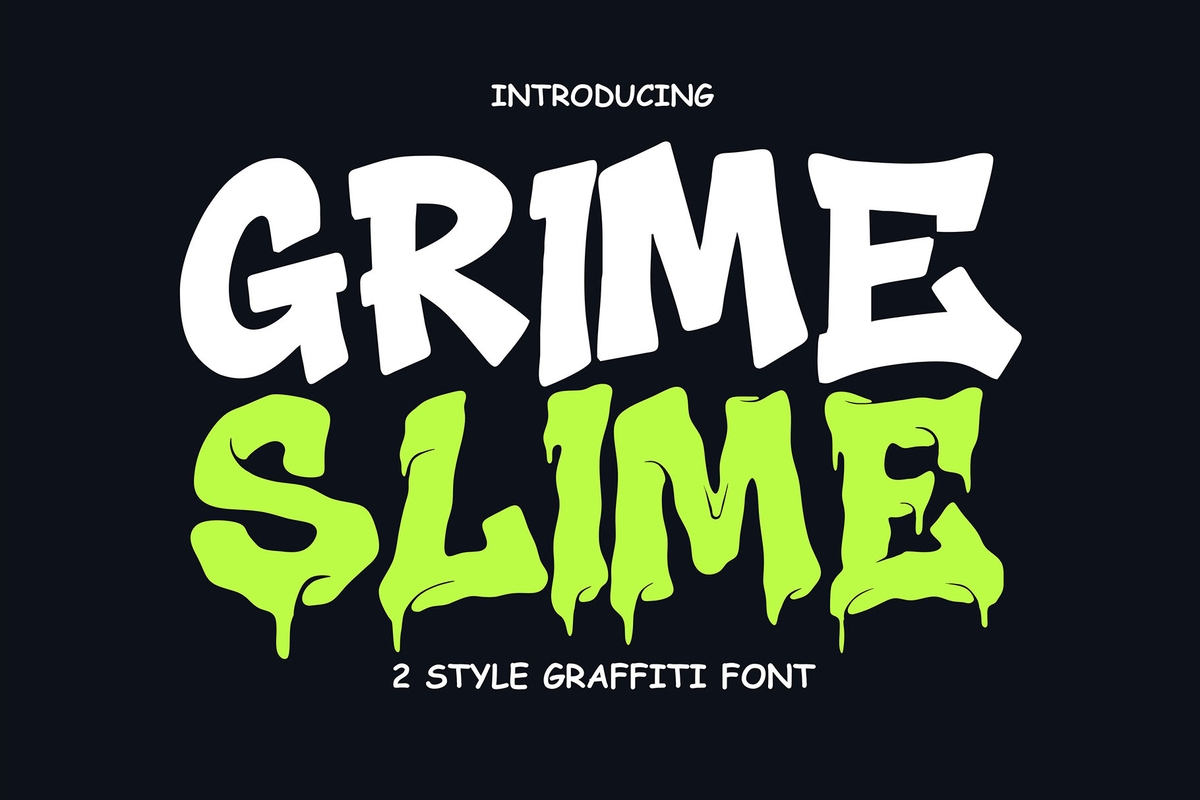
Grime Slime - Dripping
Grime Slime is a bold melted graffiti style designed to deliver raw street energy with a toxic slime flow aesthetic. Inspired by underground graffiti culture, urban decay, horror visuals, and dripping street lettering, this typeface brings aggressive character and visual impact into modern design projects. Every letterform looks as if it is melting, oozing, and dripping with poisonous slime, creating a powerful visual presence that feels alive, dangerous, and expressive. This font is built fo